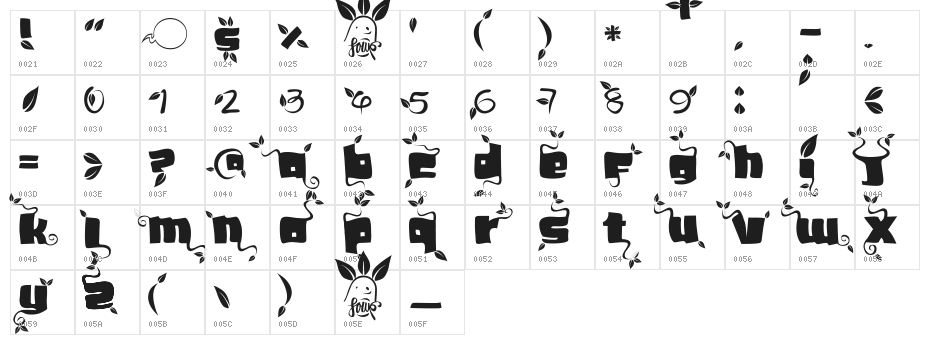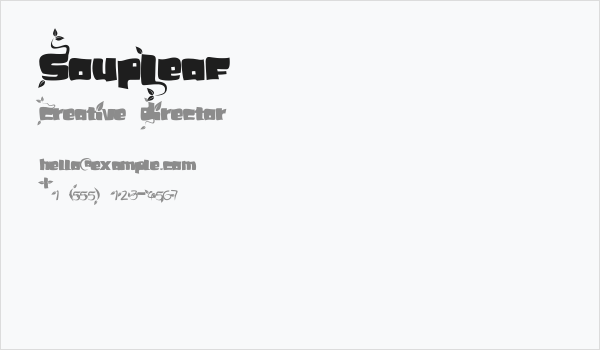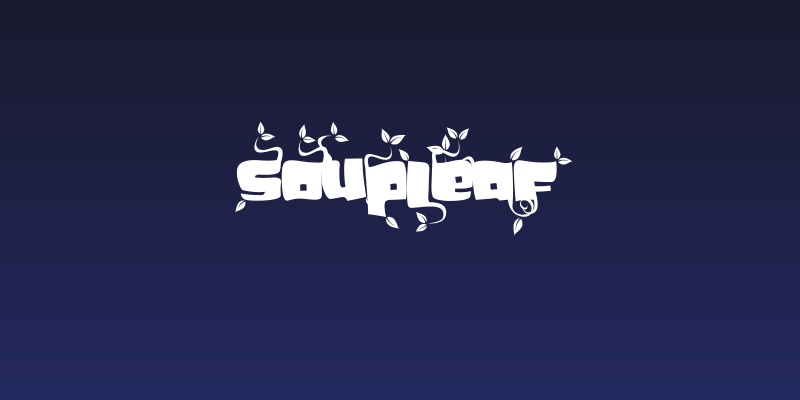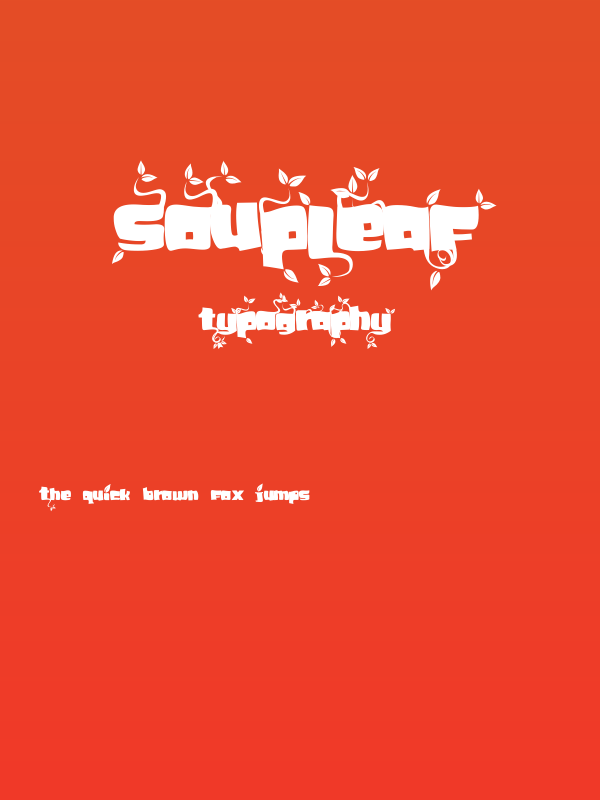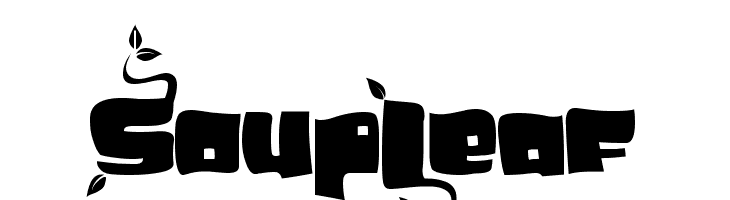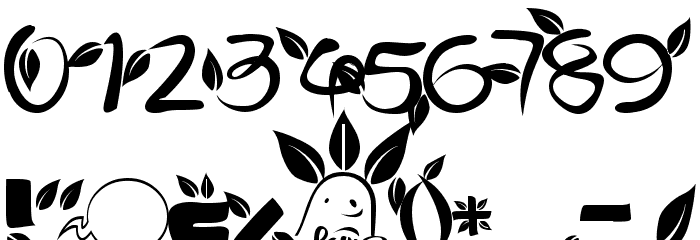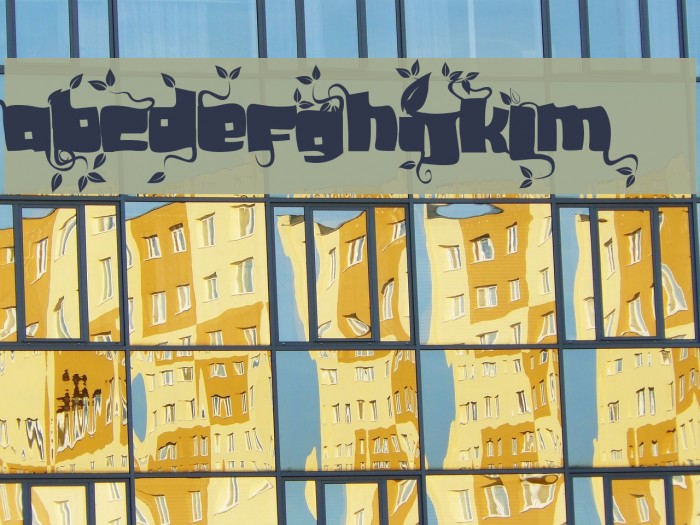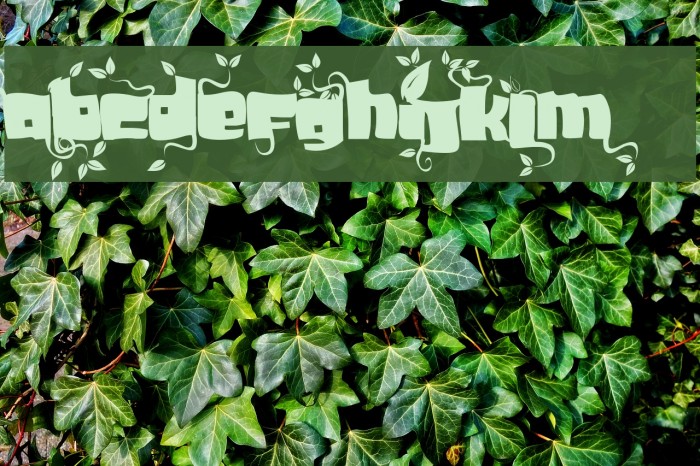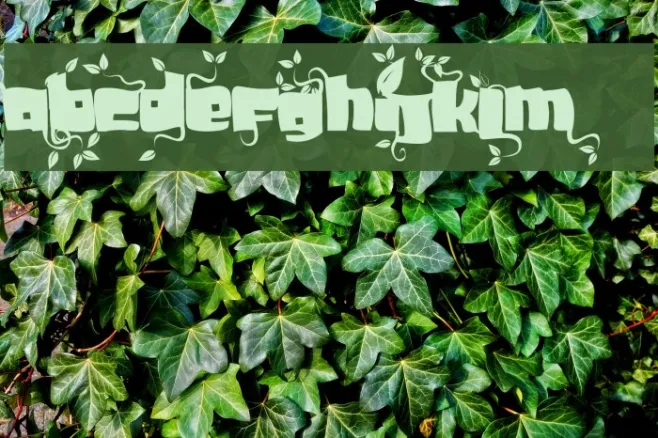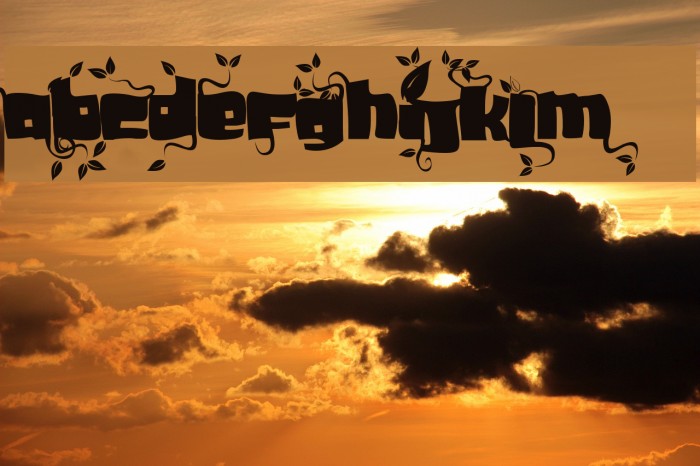
SoupLeaf Font
SoupLeaf Description
This playful and decorative font features a unique design with leaf-like embellishments integrated into each character, creating a whimsical and organic feel. The uppercase letters are adorned with vines and leaves, giving them a lively and nature-inspired appearance. The lowercase letters maintain a bold and rounded structure, while still incorporating subtle leaf motifs. The numbers follow a similar style, with some digits featuring leaf accents. Special characters are creatively designed, with some incorporating leaf elements, enhancing the overall theme. This font is ideal for projects that require a touch of nature or a playful aesthetic.